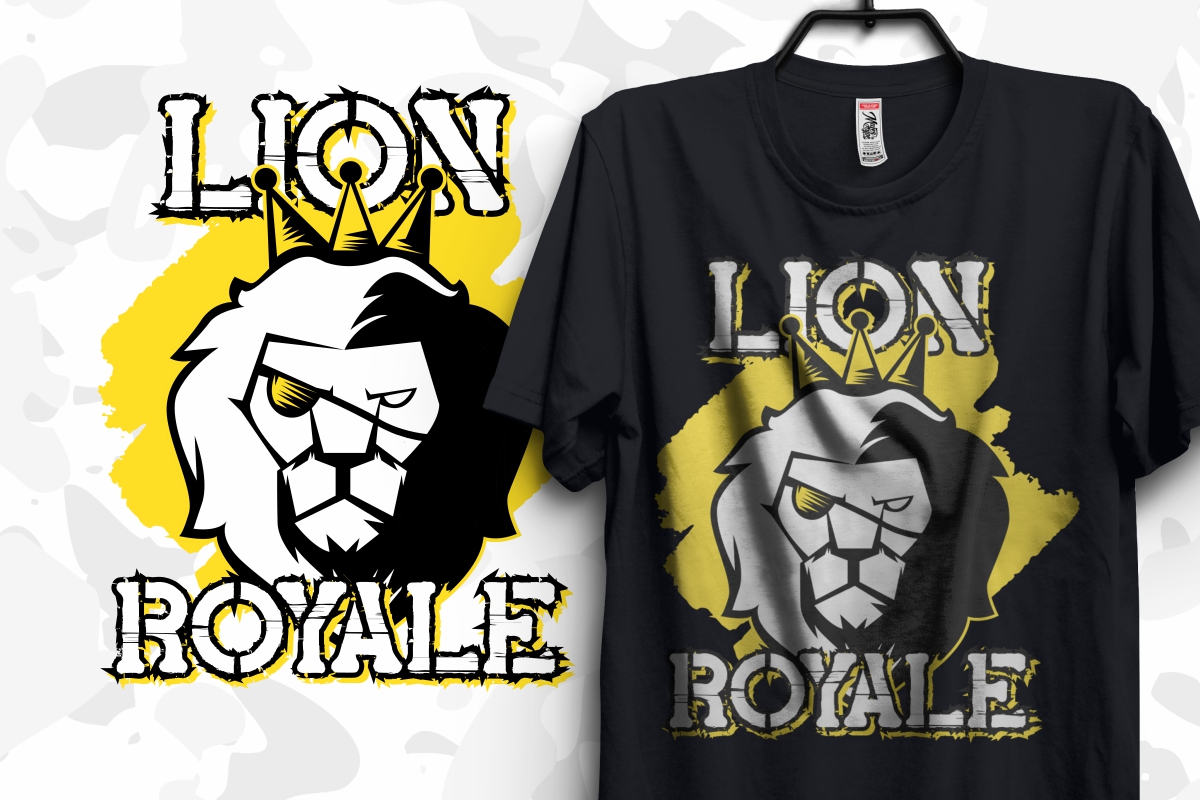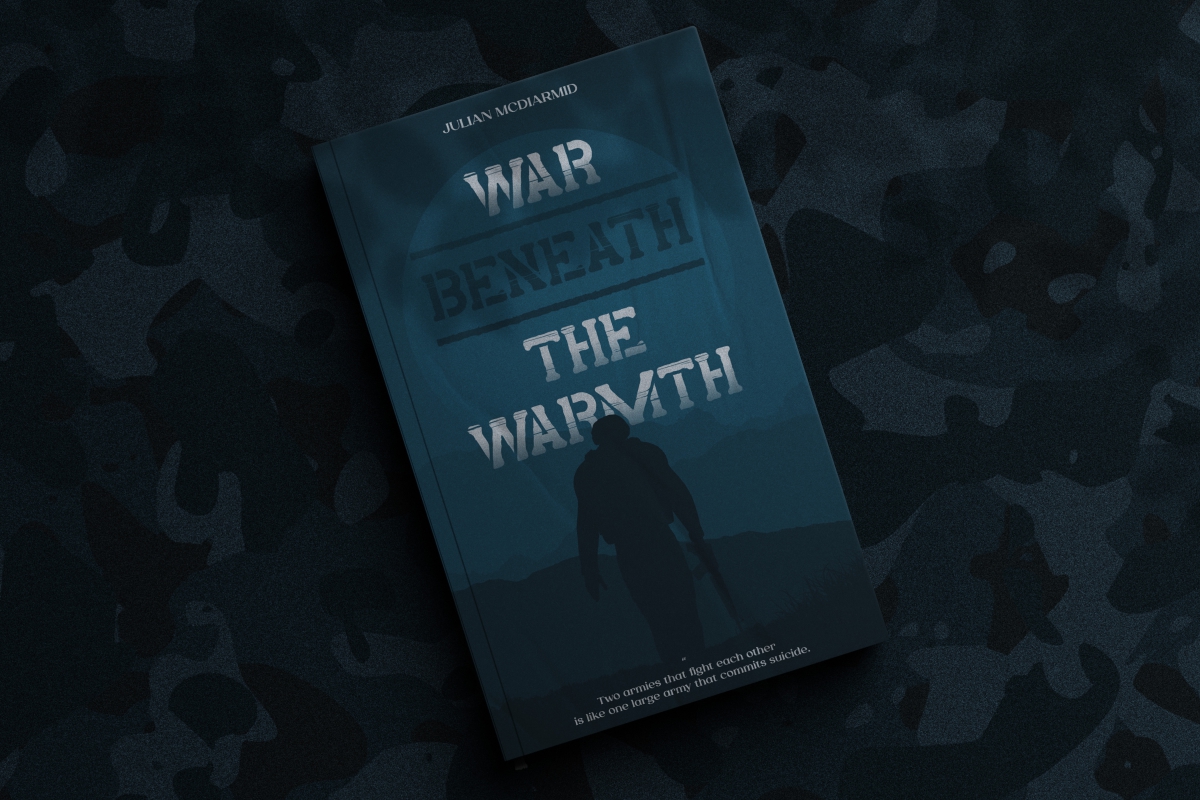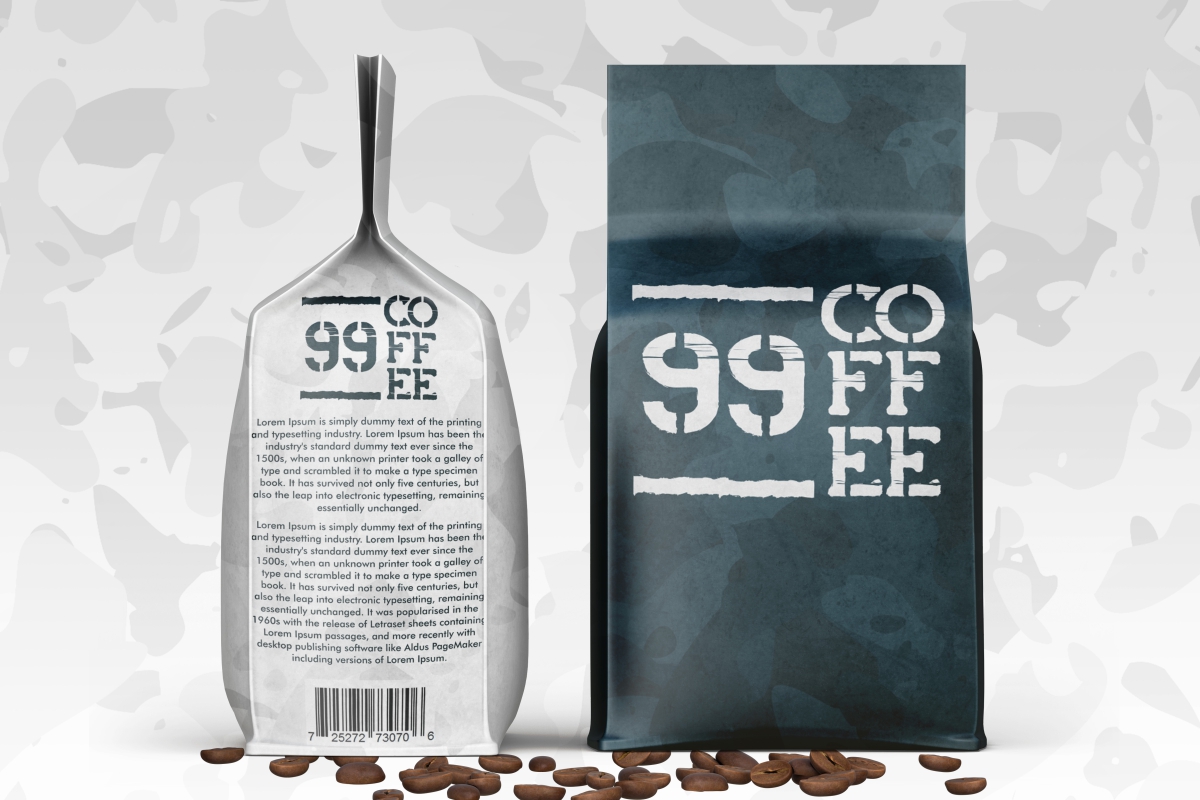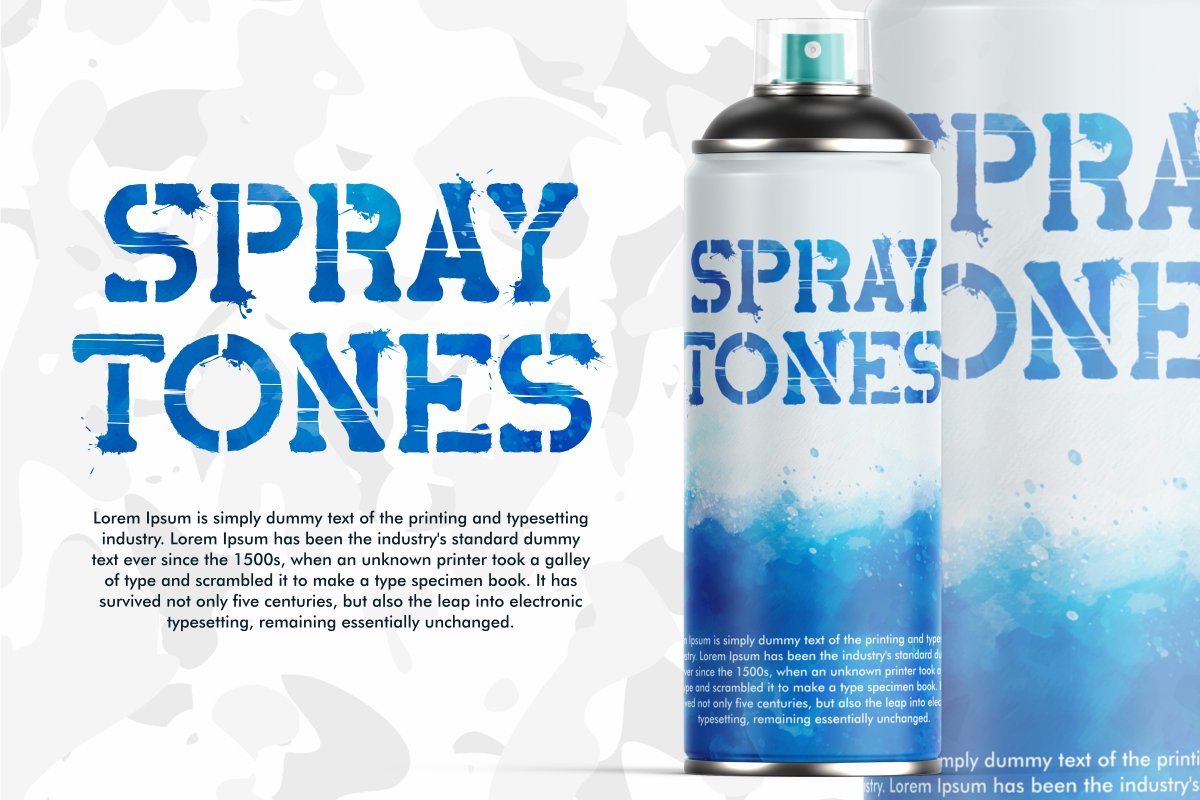
Paid Stamp Font
Paid Stamp Display Font
This is a stencil army font. This stamped font is a unique style by combining it with a stencil look, making it looks awesome. Great for games, lettering, logos, products packaging, shirt, signage, stamp, title etc. Paid Stamp comes with brave and unique font with two styles, Regular and Display. The font will be awesome for many industries including : café, fashion, movie, games and many more!